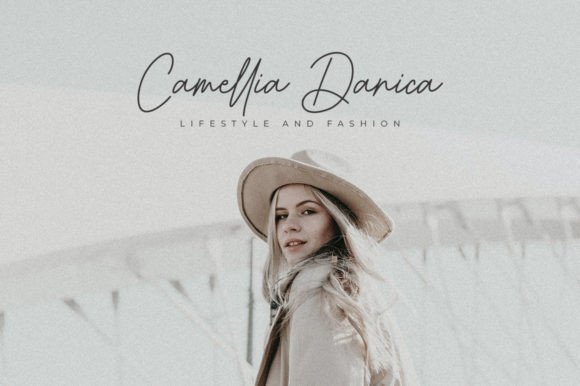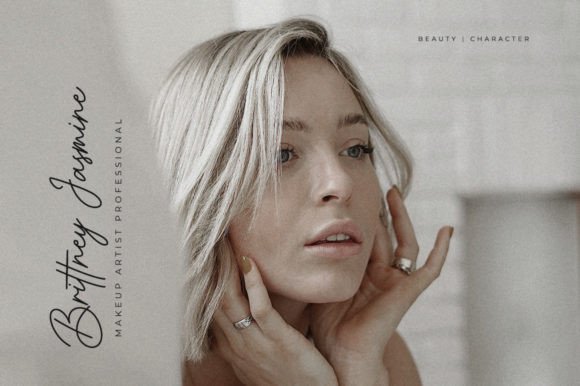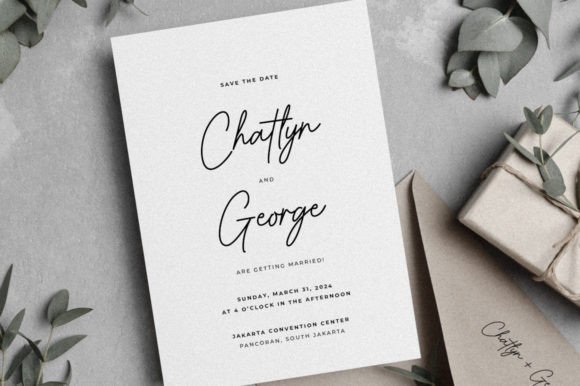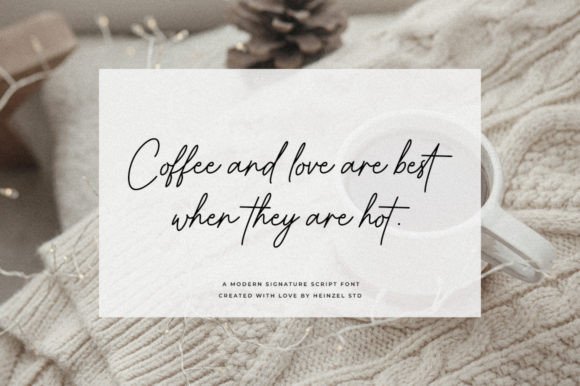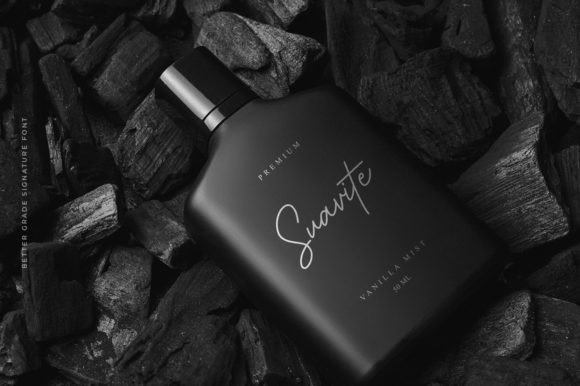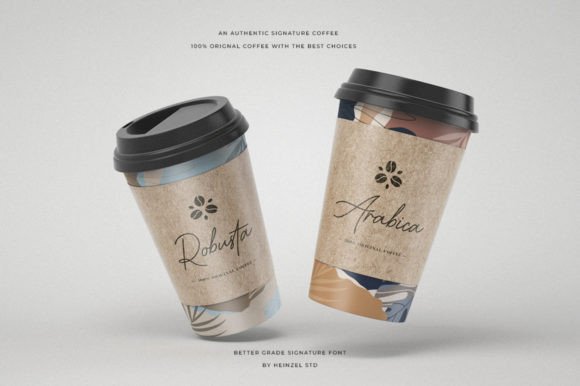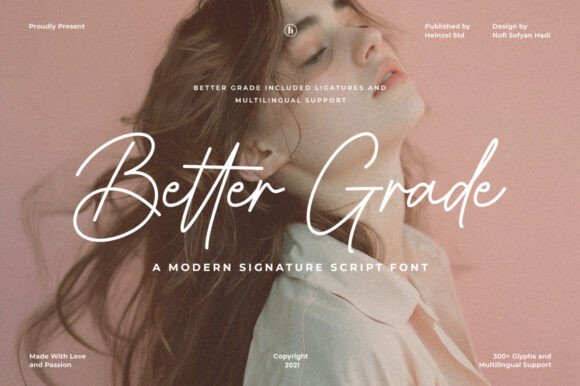
The Quest for the Perfect Font: Discovering Better Grade
I’ll never forget the time I was working on a project for a client who wanted a font that was both elegant and understated. I had spent hours scouring the internet for the perfect font, but nothing seemed quite right. That was until I stumbled upon Better Grade, a thin and beautiful handwritten font that caught my eye. In this article, I’ll share my experience with Better Grade, its features, and how to make the most of it in your designs.
A First Impression: What I Love About Better Grade
Better Grade is a refined and timeless font that has won my heart. Here are some things I love about it:
- ✨ Unique and distinctive style: Better Grade has a certain je ne sais quoi that sets it apart from other fonts.
- ✅ Highly legible: Despite its thin lines, Better Grade is easy to read, even at small sizes.
- 💫 Versatile: Better Grade can be used for a wide range of projects, from wedding invitations to branding and packaging.
An Honest Review: The Not-So-Perfect Font
No font is perfect, and Better Grade is no exception. Here are a few quirks to keep in mind:
- 🤔 Limited availability of certain characters: Some users have reported that certain characters, such as ligatures, are not readily available.
- ⚠️ May not be suitable for body text: Due to its thin lines, Better Grade may not be the best choice for large blocks of body text.
The Story Behind Better Grade
Better Grade was designed by a team of typographers who wanted to create a font that was both elegant and accessible. The font’s design is inspired by traditional handwriting, with a focus on clean lines and simple shapes. The result is a font that’s both timeless and versatile.
| Font Name | Better Grade Font |
| What is the best use for Better Grade? | Better Grade is perfect for designs that require a touch of elegance, such as wedding invitations, branding, and packaging. |
| Is Better Grade suitable for body text? | No, Better Grade may not be the best choice for large blocks of body text due to its thin lines. |